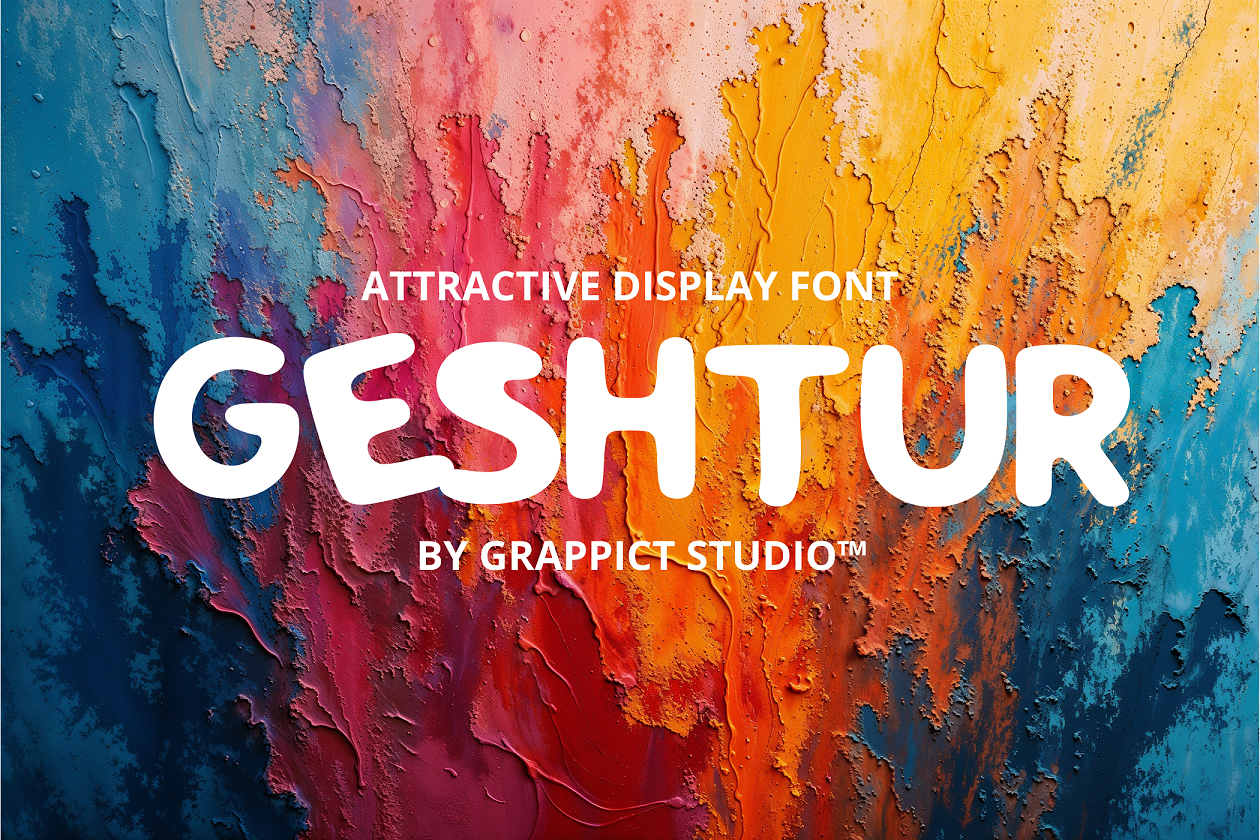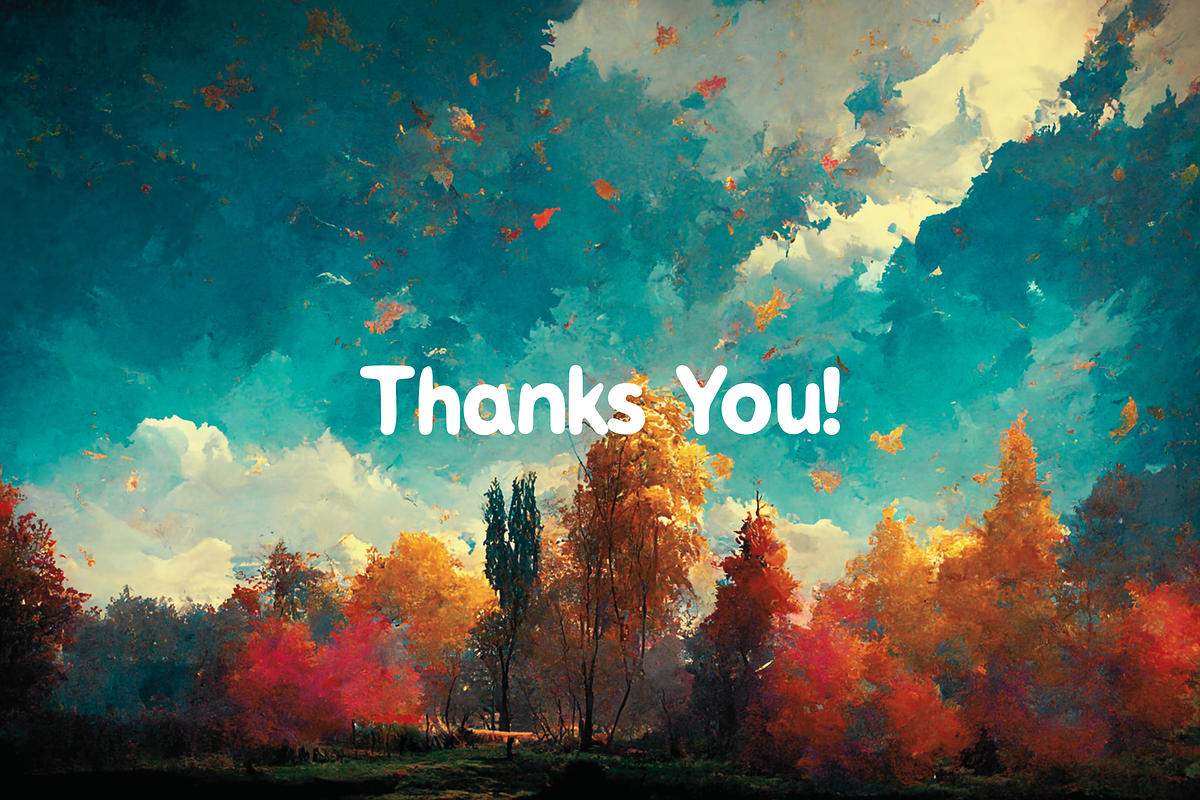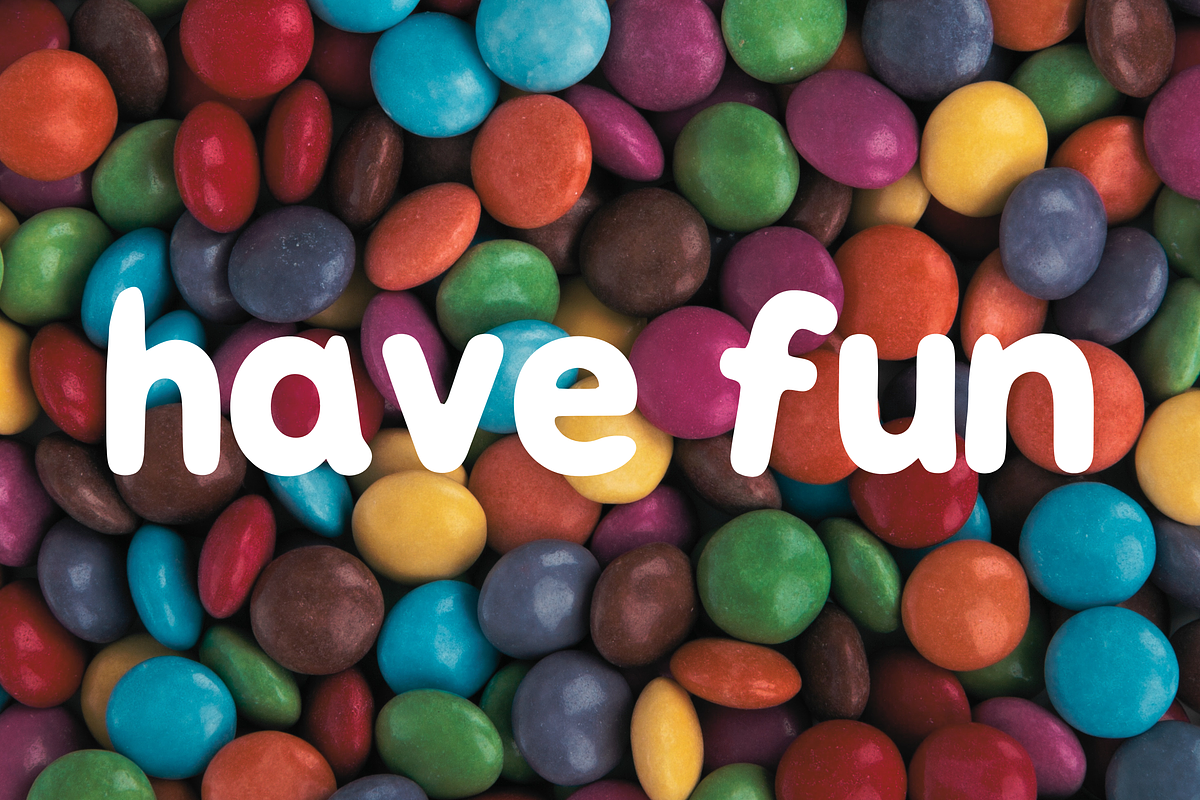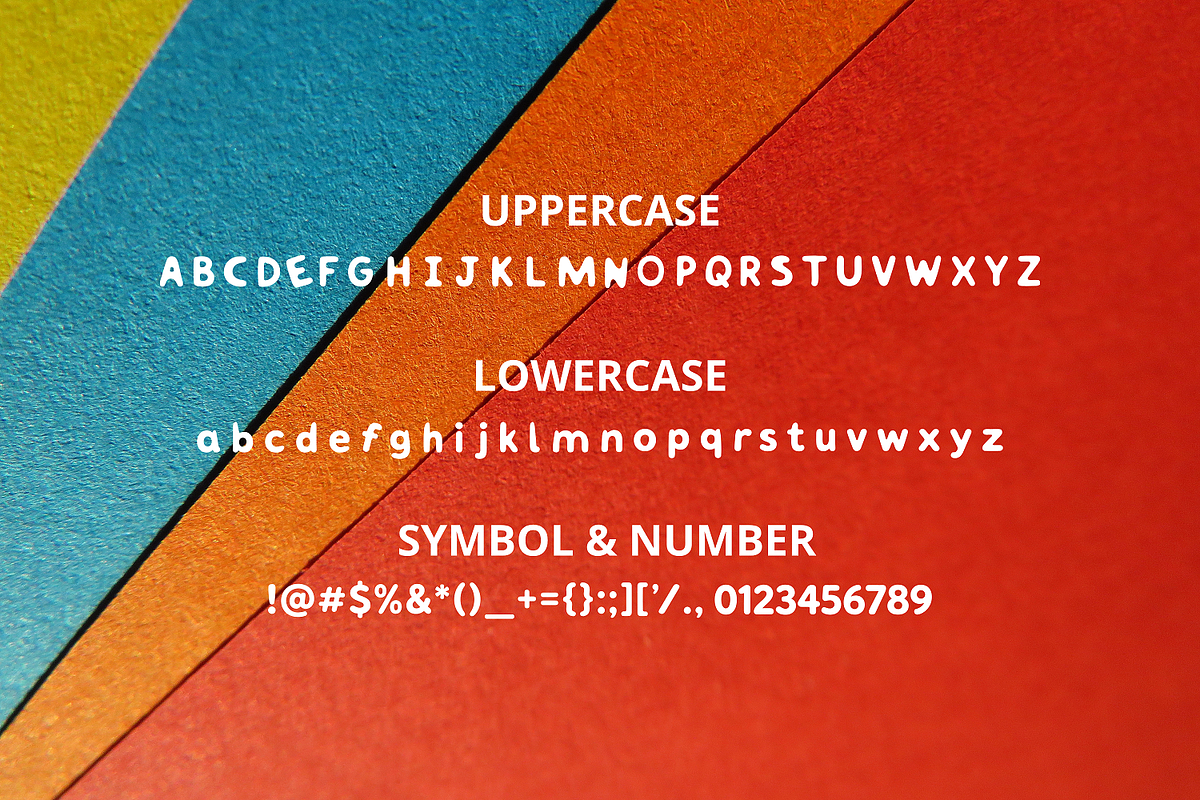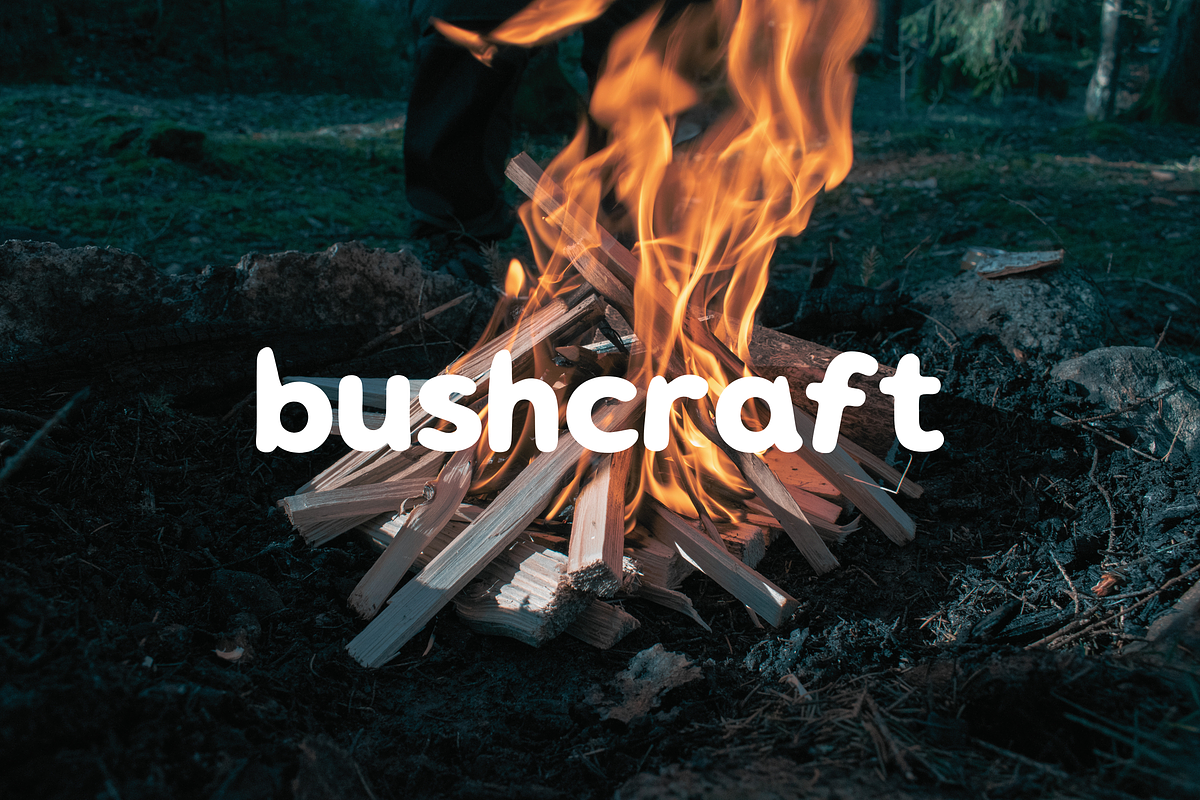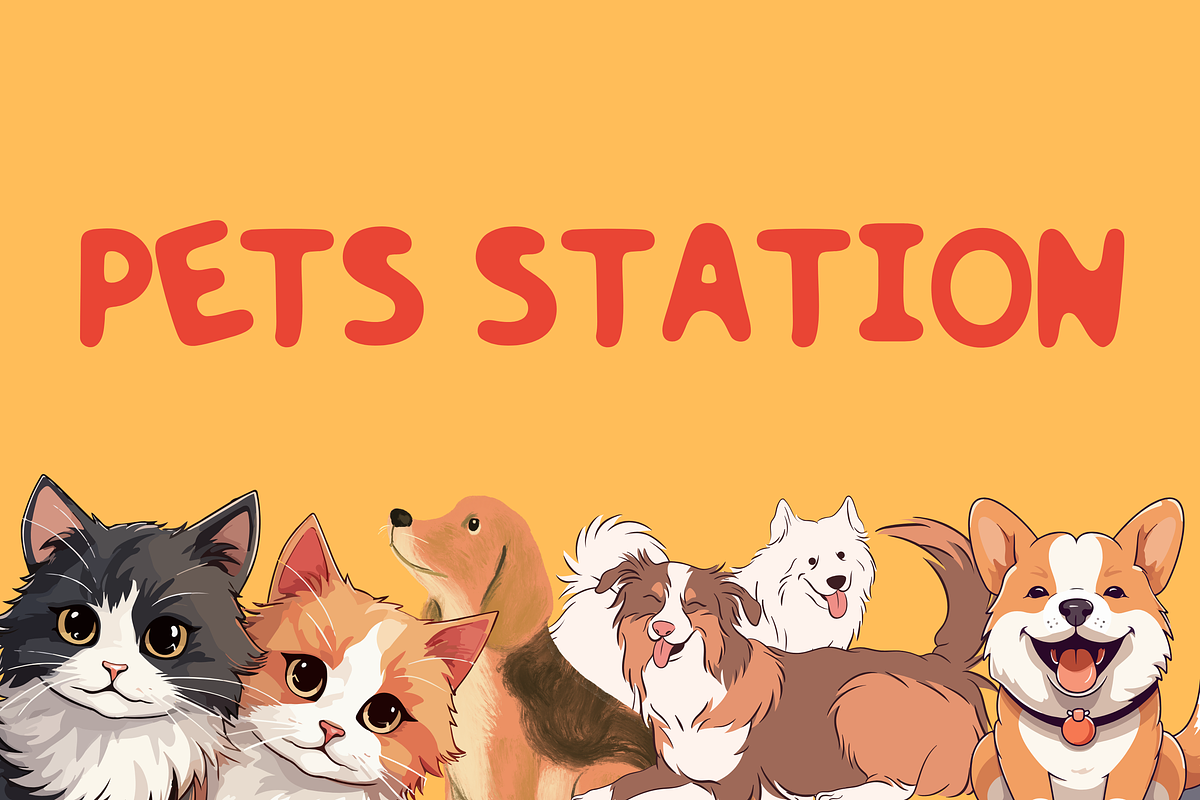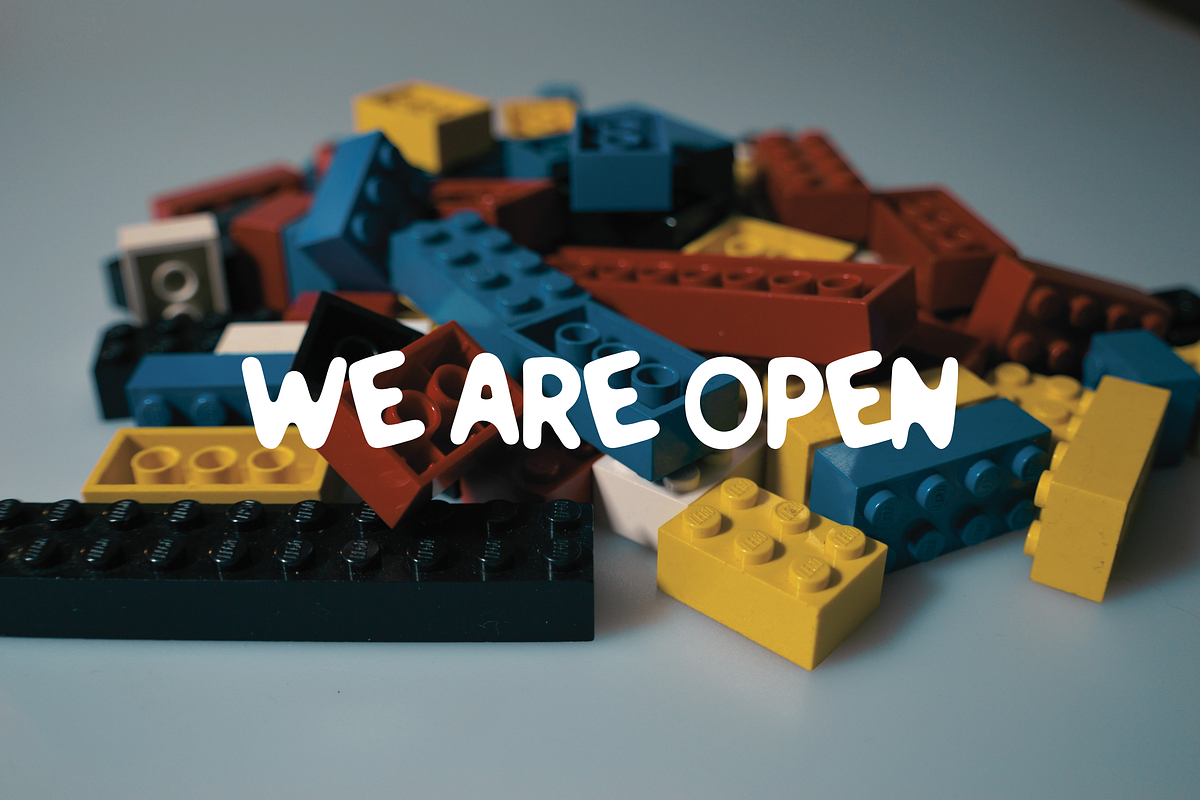
Geshtur - Playful Display Font
Introducing Geshtur – A Vibrant & Playful Display Font
Inject energy, fun, and a touch of hand-drawn charm into your creative projects with Geshtur, a premium display font designed by Grappict Studio™. With its bold, soft-edged, and organic letterforms, this typeface is crafted to instantly grab attention while maintaining a highly approachable, cheerful vibe.
Geshtur features a complete character map, offering unique variations for both uppercase and lowercase letters to give your designs a truly authentic, custom feel. Whether you are creating striking headlines or playful branding, its organic curves make your text stand out effortlessly.
Perfect for a Wide Range of Creative Applications:
Kids & Children’s Branding: Perfect for toy packaging, storybooks, school posters, and clothing brands.
Product Packaging & Merchandising: Give snack wrappers, beverage labels, stickers, and t-shirt designs a bold, appetizing, or artsy personality.
Digital Content & Marketing: Ideal for YouTube thumbnails, social media graphics, quote templates, and website banners.
Event Graphics: Stand out on birthday invitations, festival flyers, and casual greeting cards.
Why Choose Geshtur?
High Legibility: Even with its thick, playful weight, every character is clean and perfectly readable at any size.
Versatile Use: Mix and match the uppercase and lowercase letters to unlock creative typographic hierarchies.